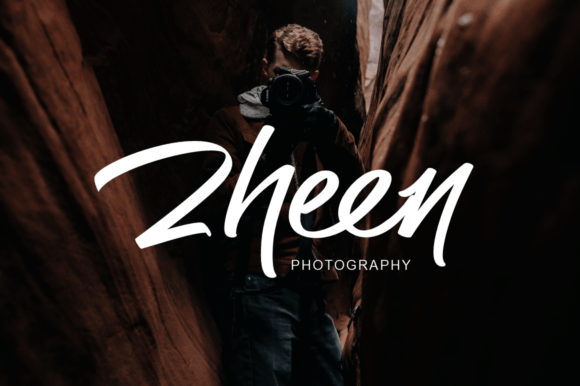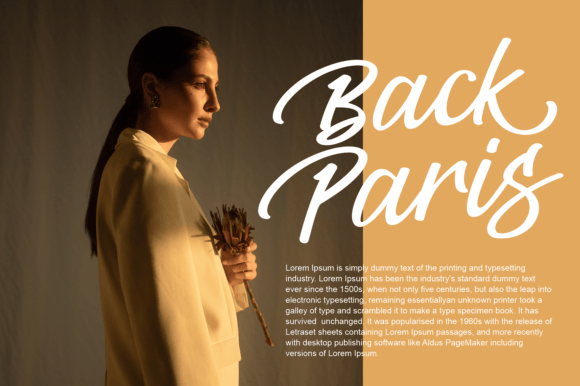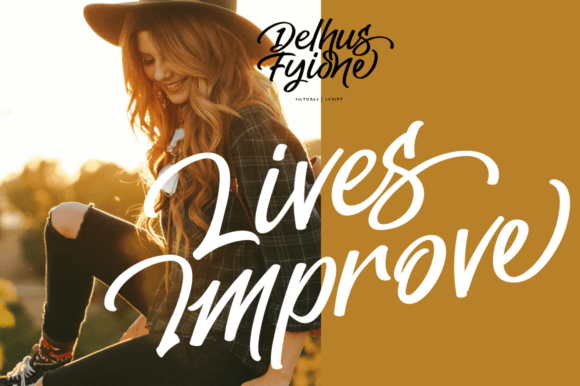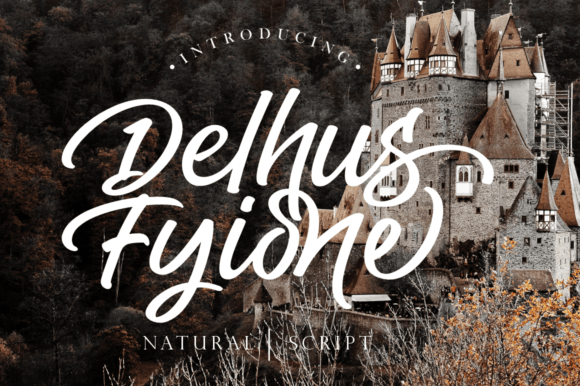
Introduction to Delhus Fyione Font
Delhus Fyione is a font with a bold and natural character, complemented by an alternative uppercase.
Delhus Fyione has a font ligature that will add natural handwriting to your projects This font is PUA encoded which means you can access all of the amazing glyphs and ligatures with ease.